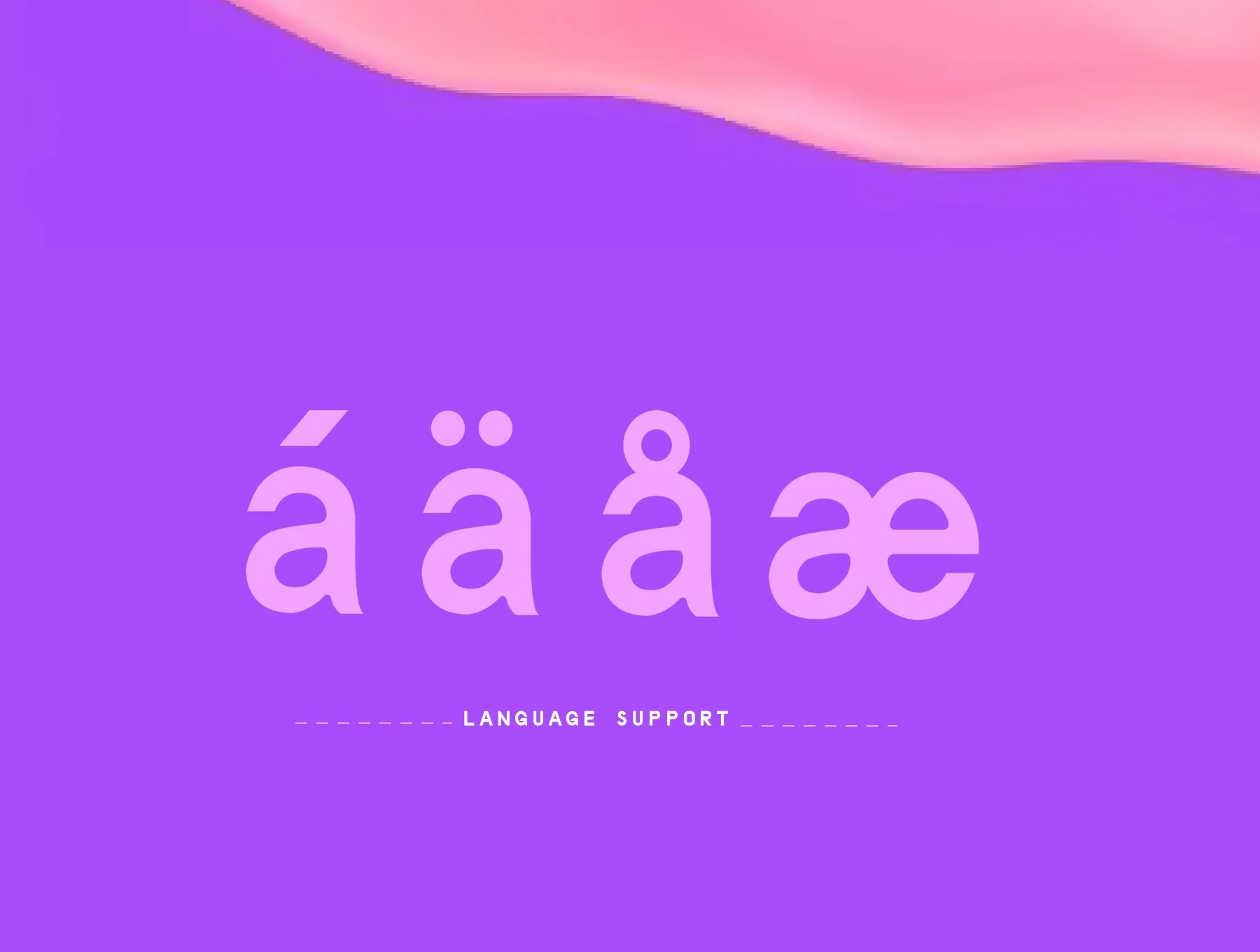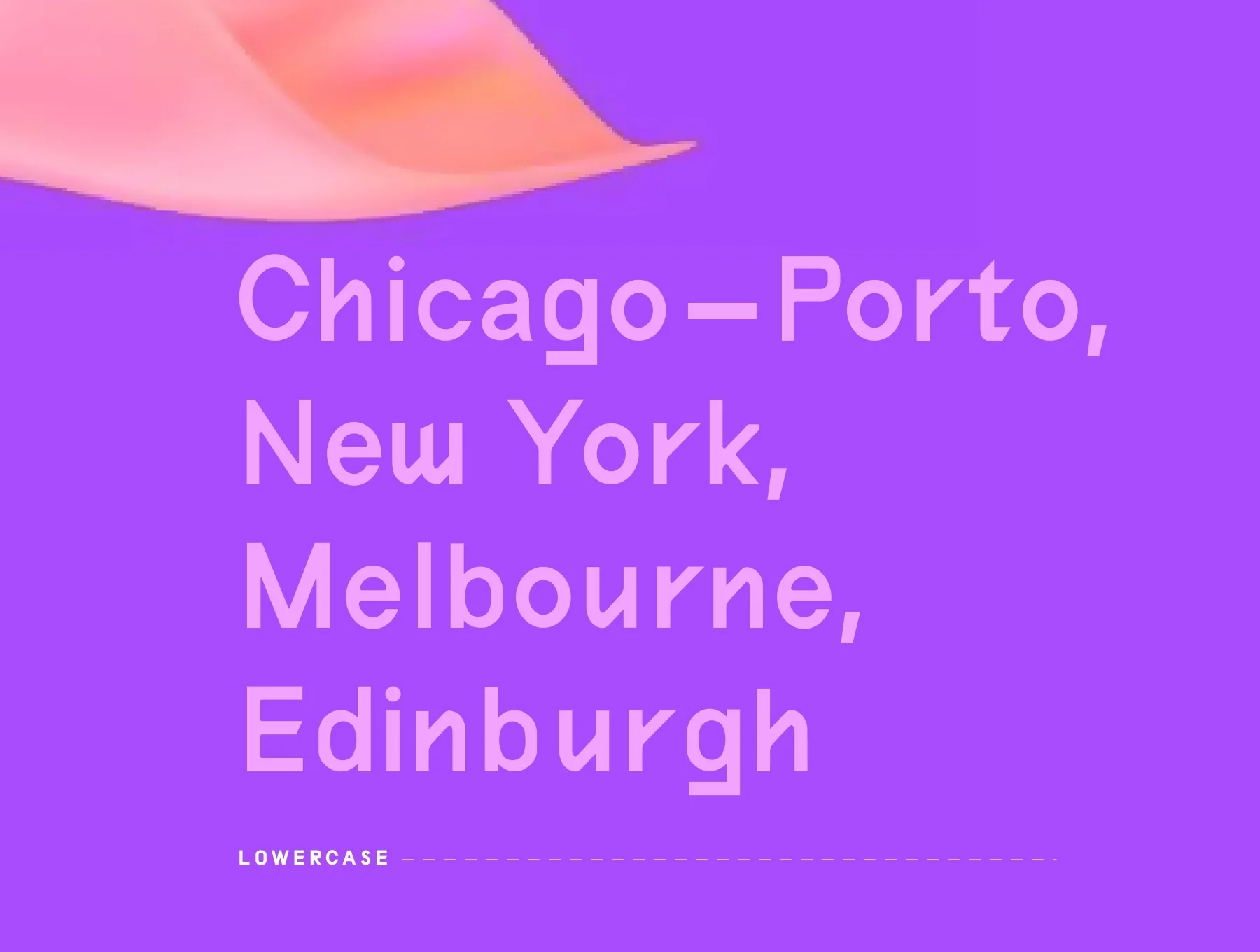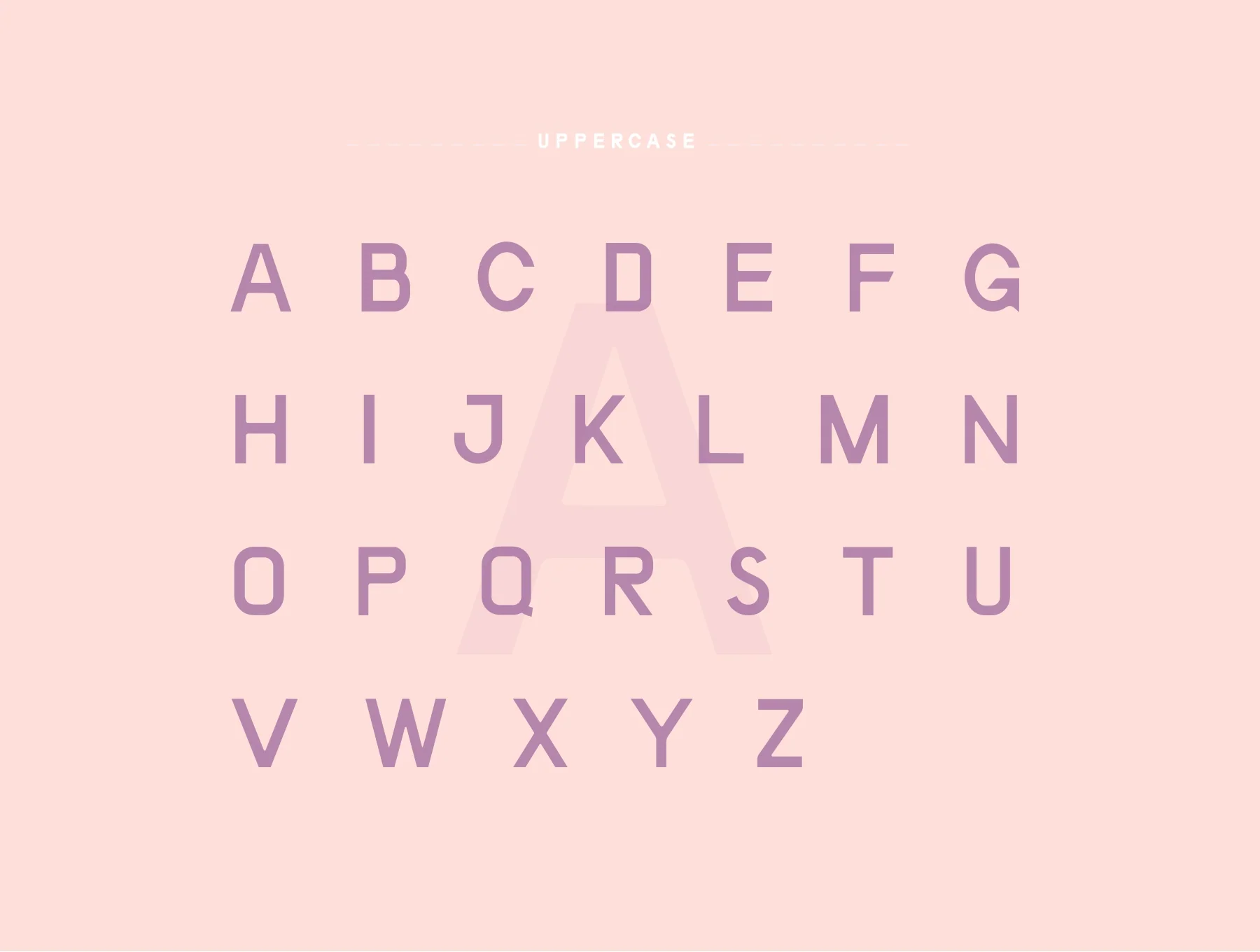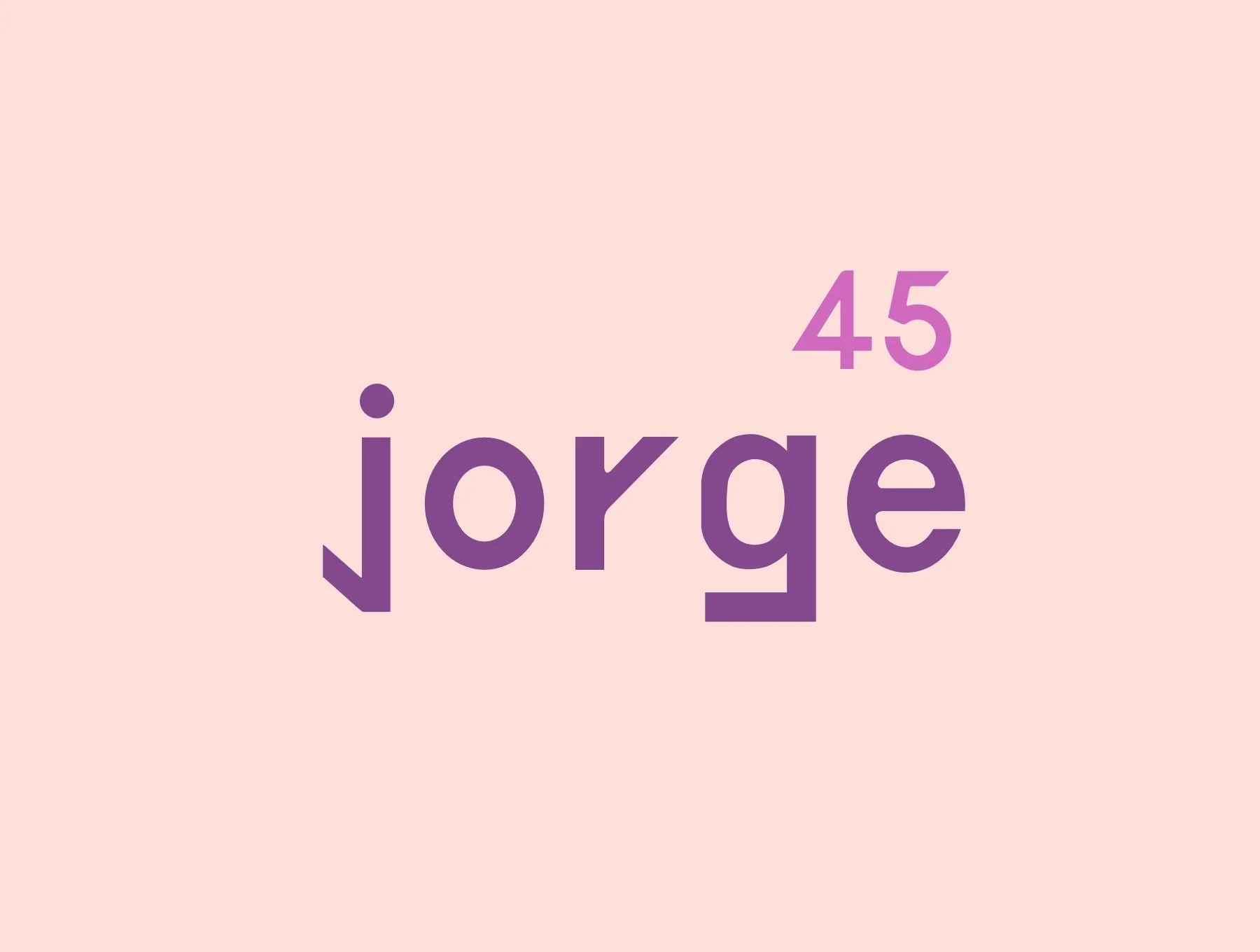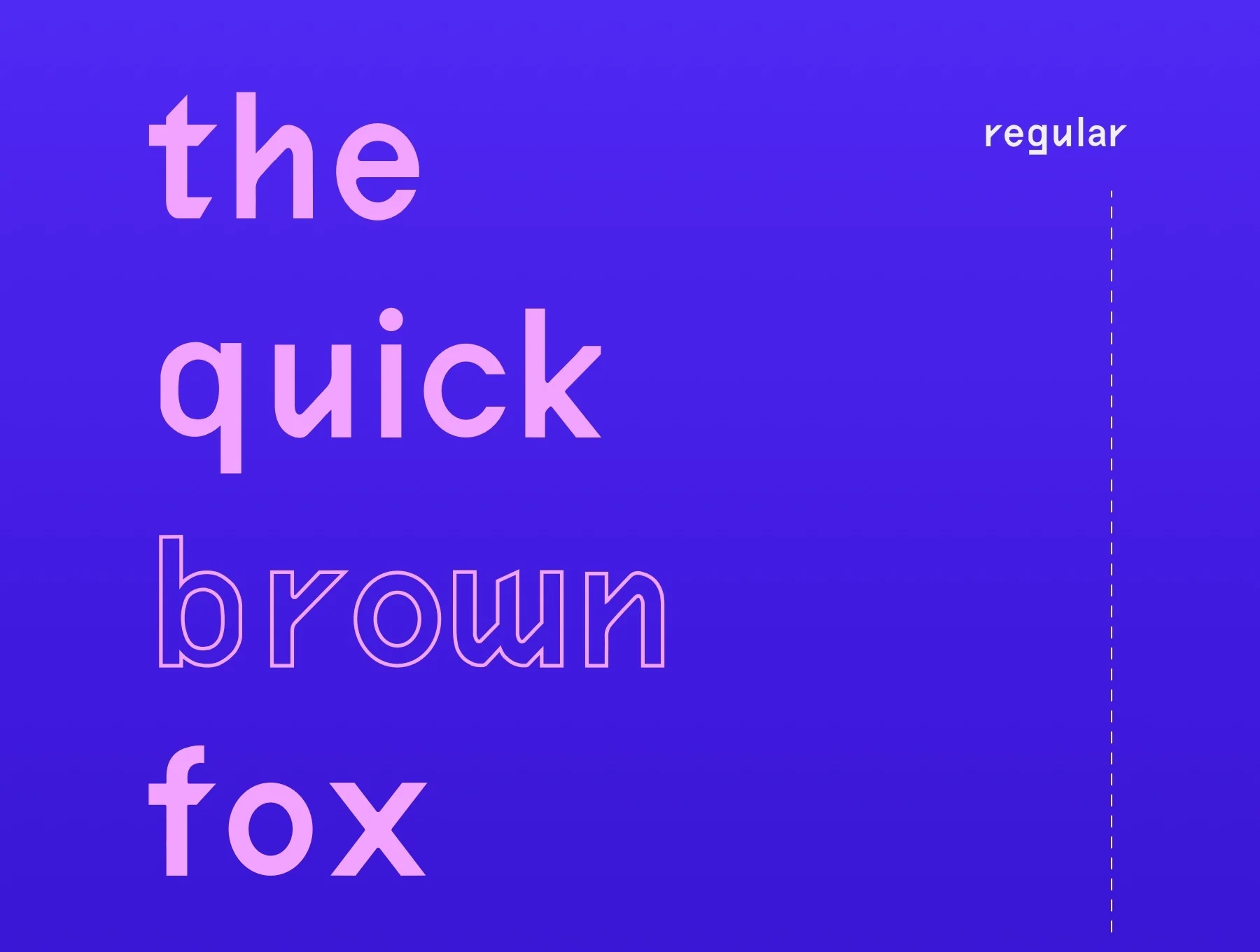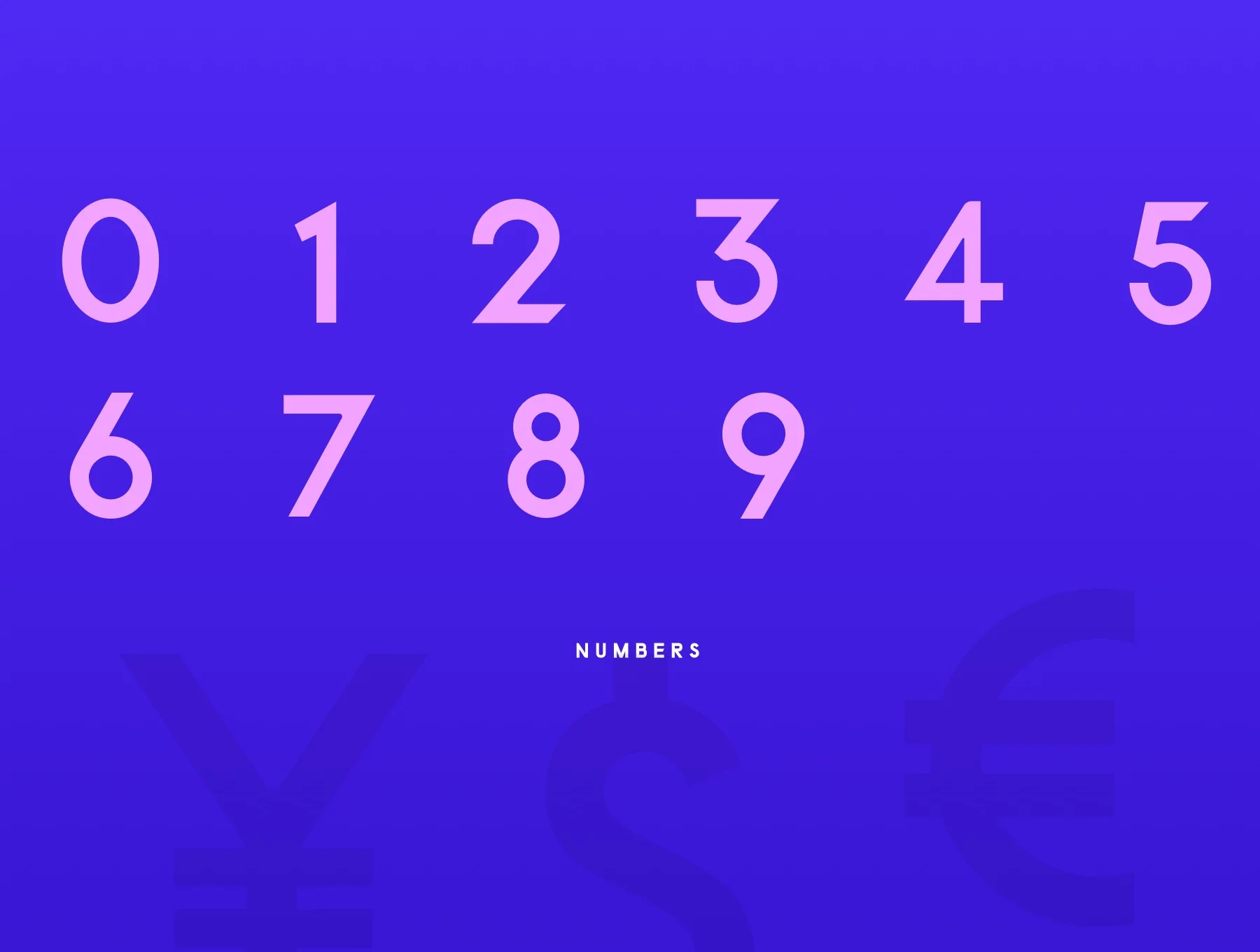
Quora Typeface
A crisp, lively minimalist geometric serif font
Sans-serif typeface
178 character set
Symbols and punctuation marks
Quora is a bright, clean geometric serif with a minimal look. It offers essential glyphs plus multilingual characters. With its distinctive style, Quora suits headlines, posters, quotes, ads, T-shirts, branding, logos, merchandise, social posts, packaging, and many creative projects.